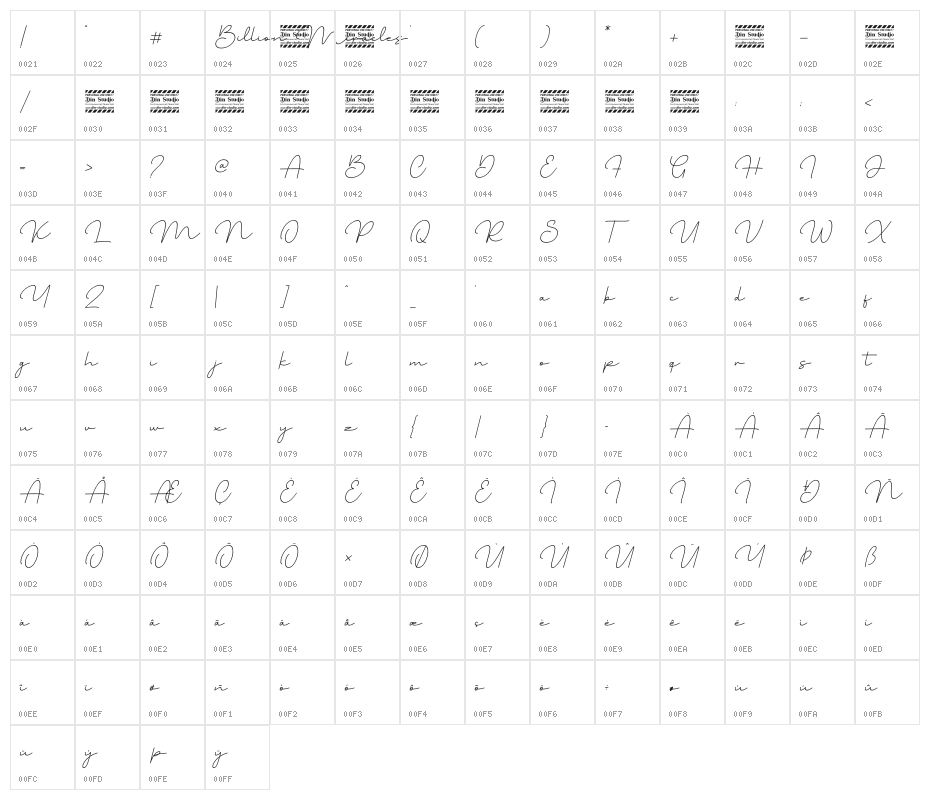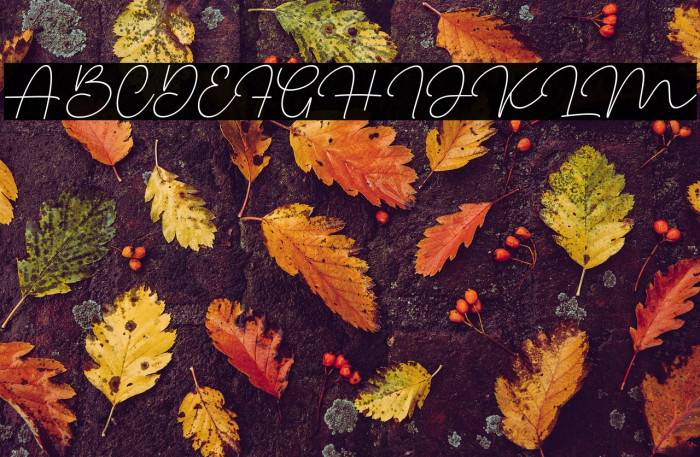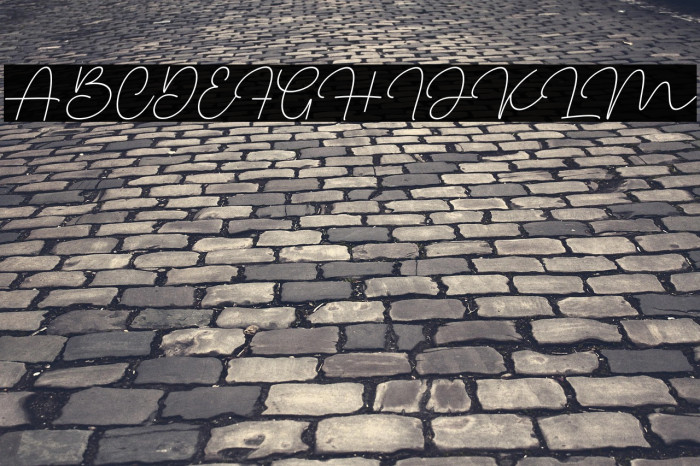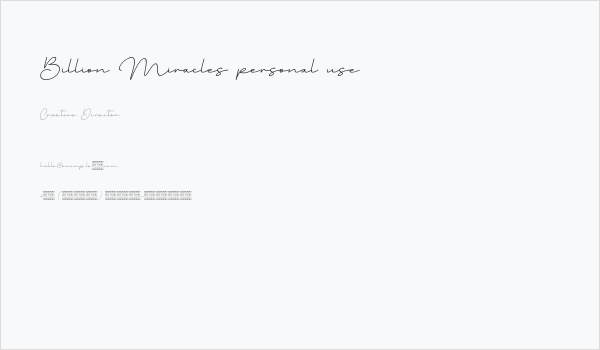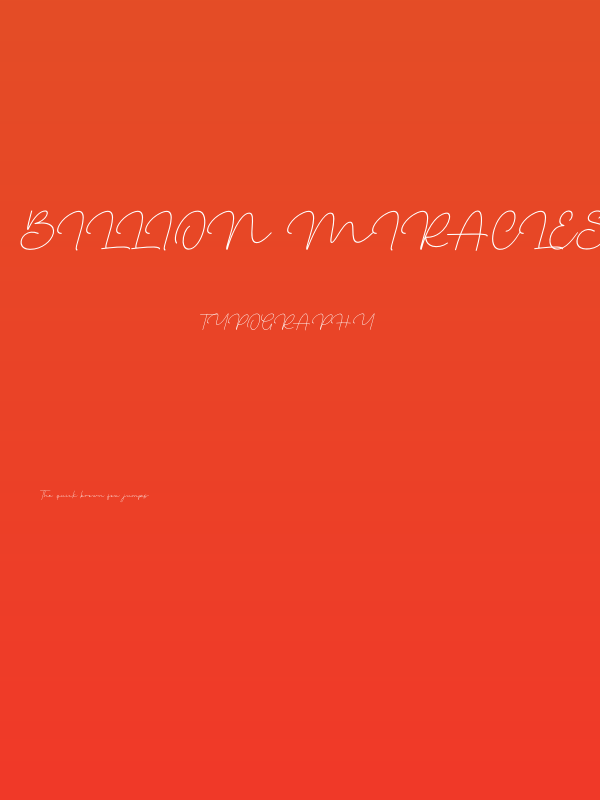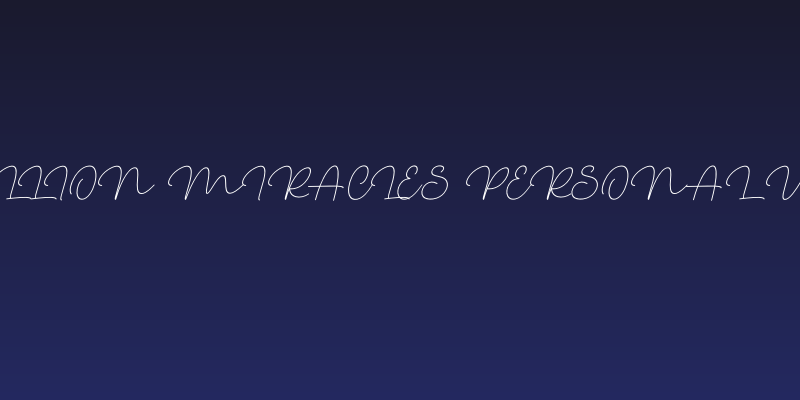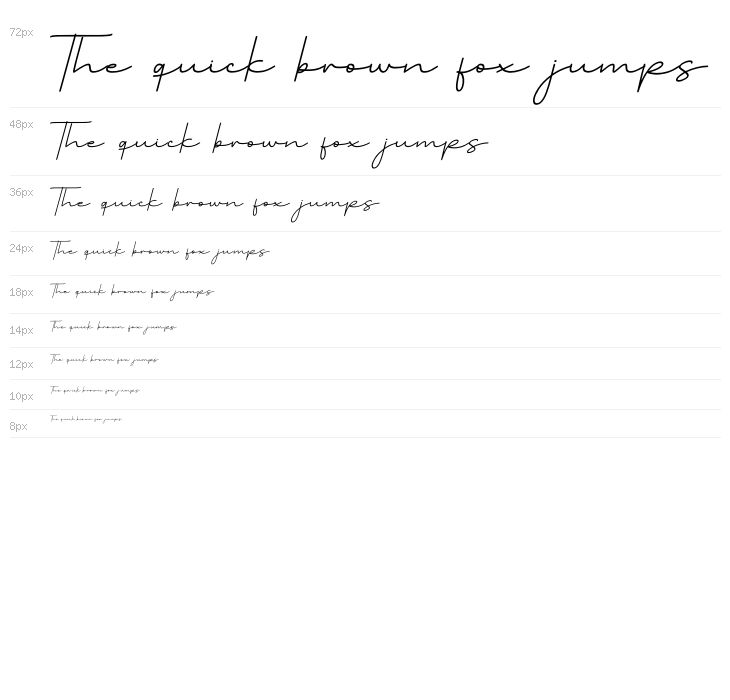
Billion Miracles personal use Font
Billion Miracles personal use Description
This elegant script font features a delicate and flowing style, characterized by its smooth, continuous strokes and a handwritten appearance. The uppercase letters are slightly more ornate, with subtle flourishes that add a touch of sophistication. The lowercase letters maintain a consistent flow, enhancing readability while preserving the font's artistic flair. The numbers and special characters are crafted with the same attention to detail, ensuring a cohesive look across all elements. This font exudes a sense of modern elegance, making it ideal for projects that require a personal and stylish touch.